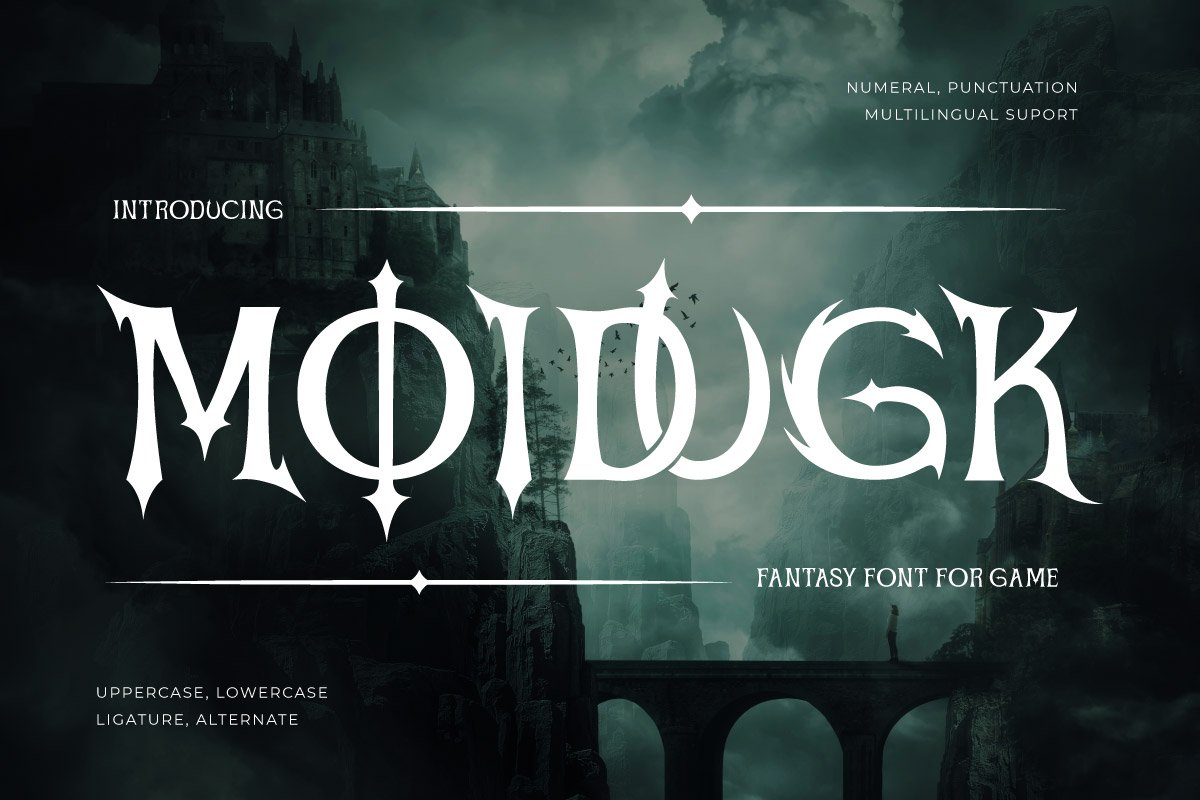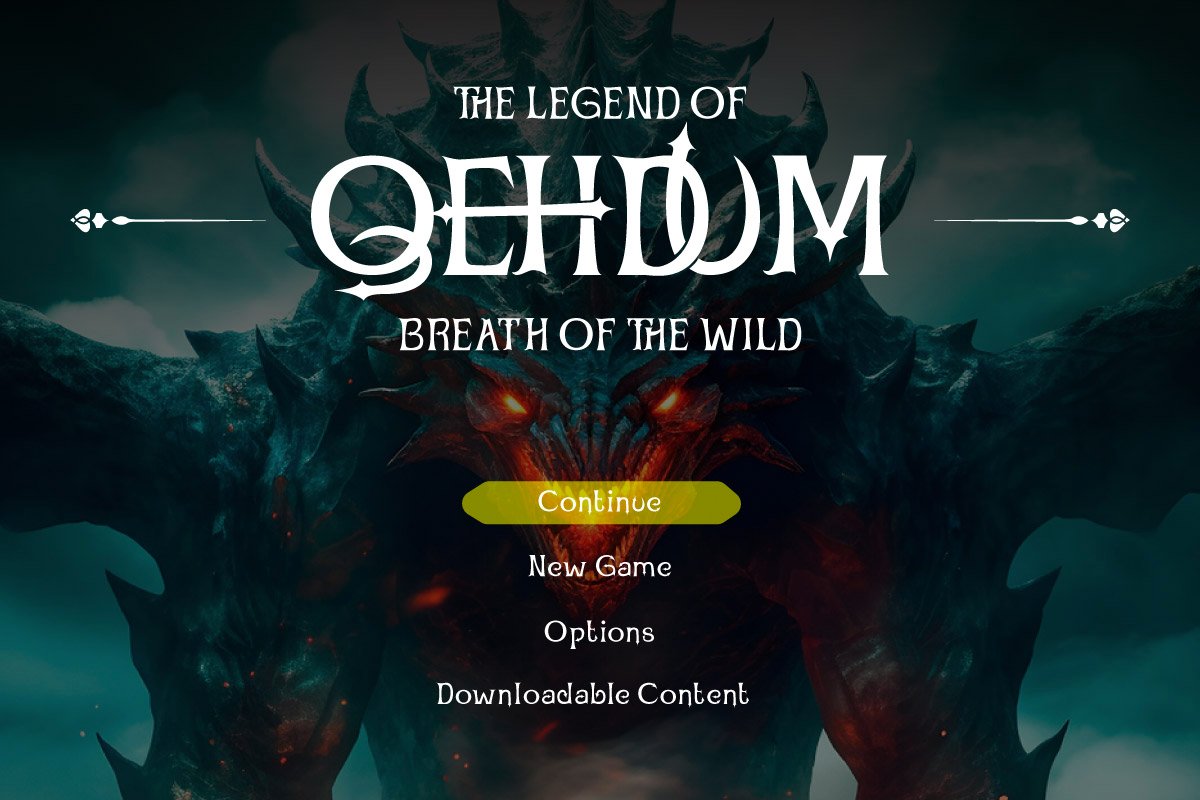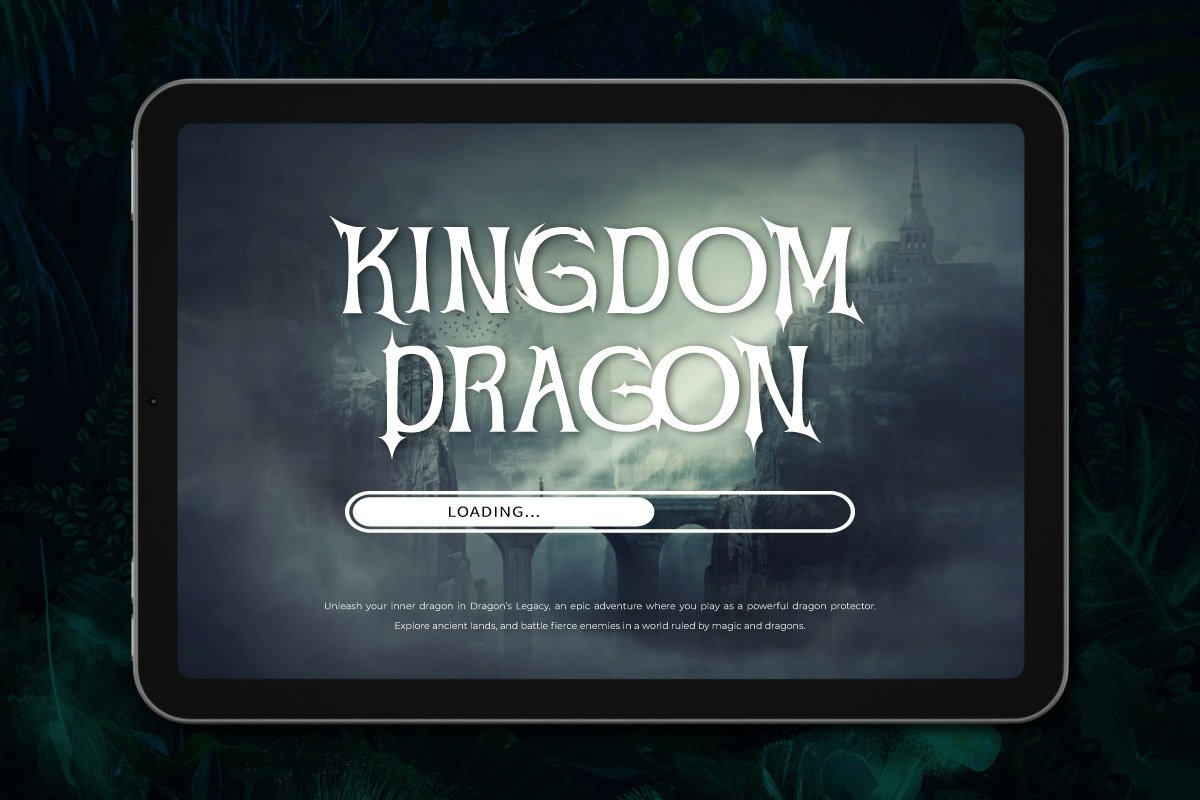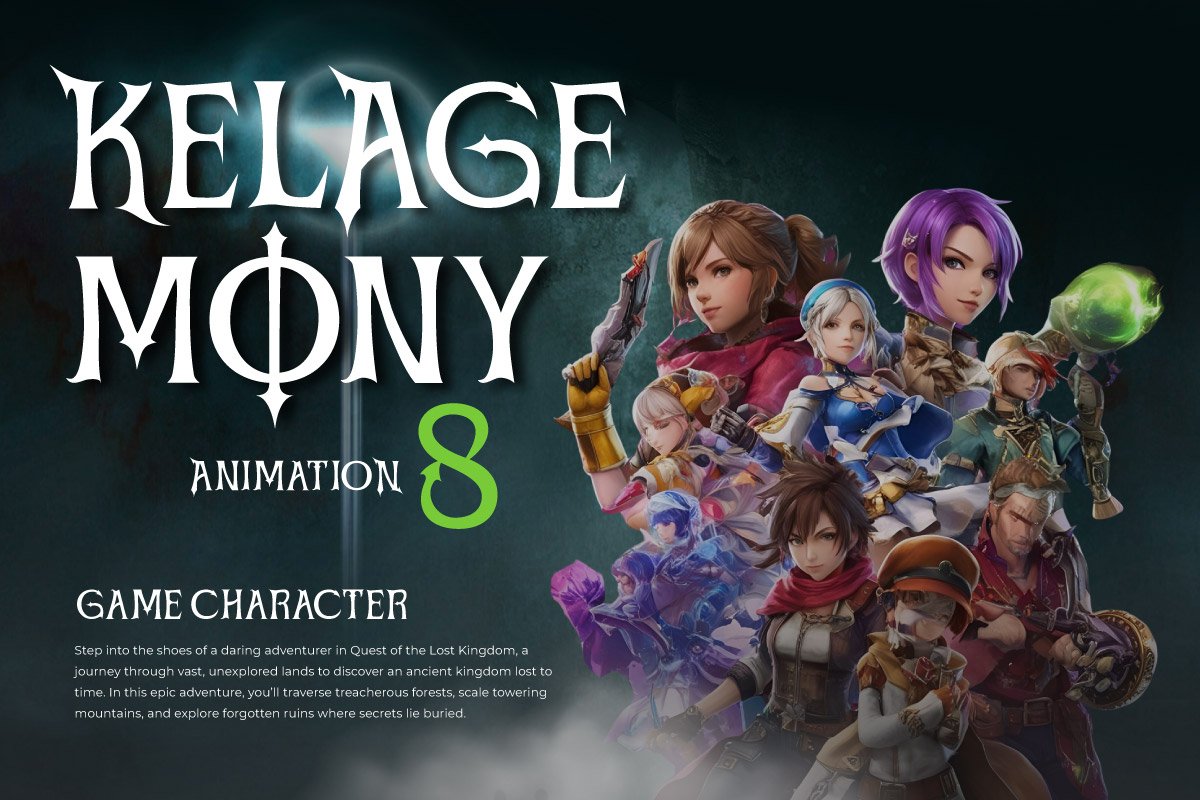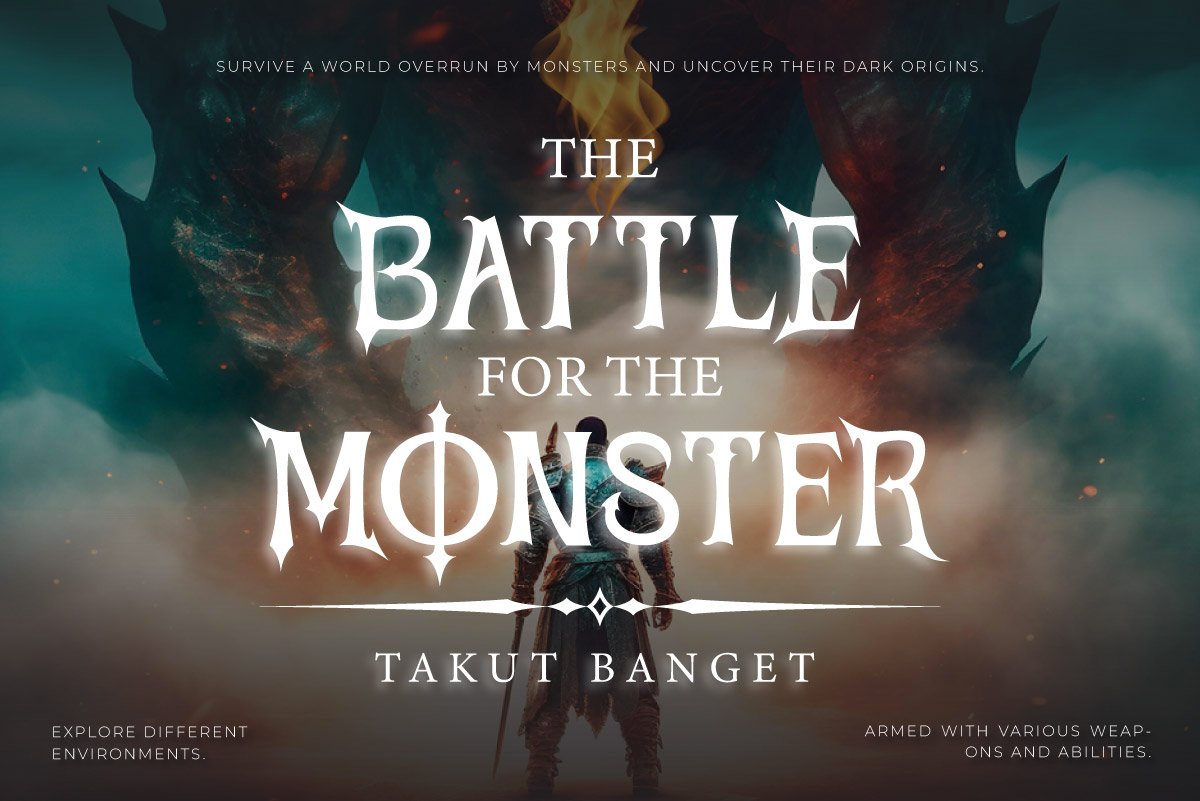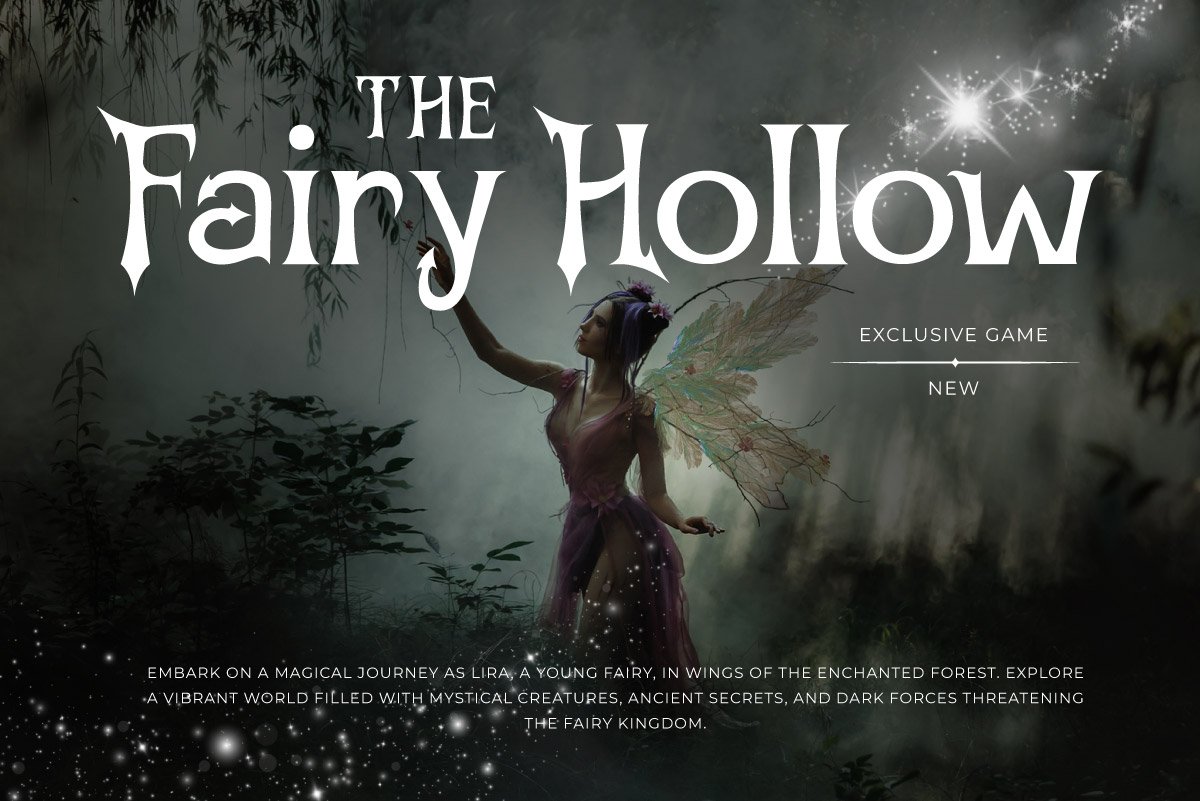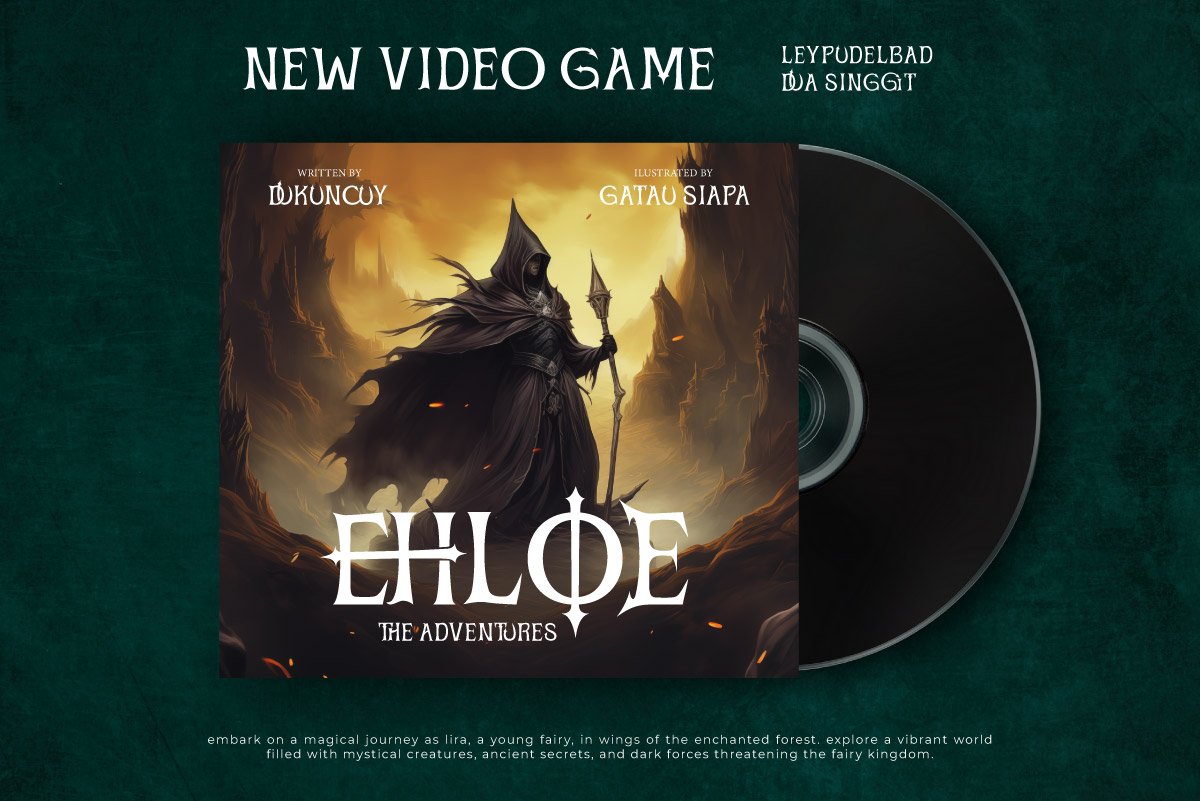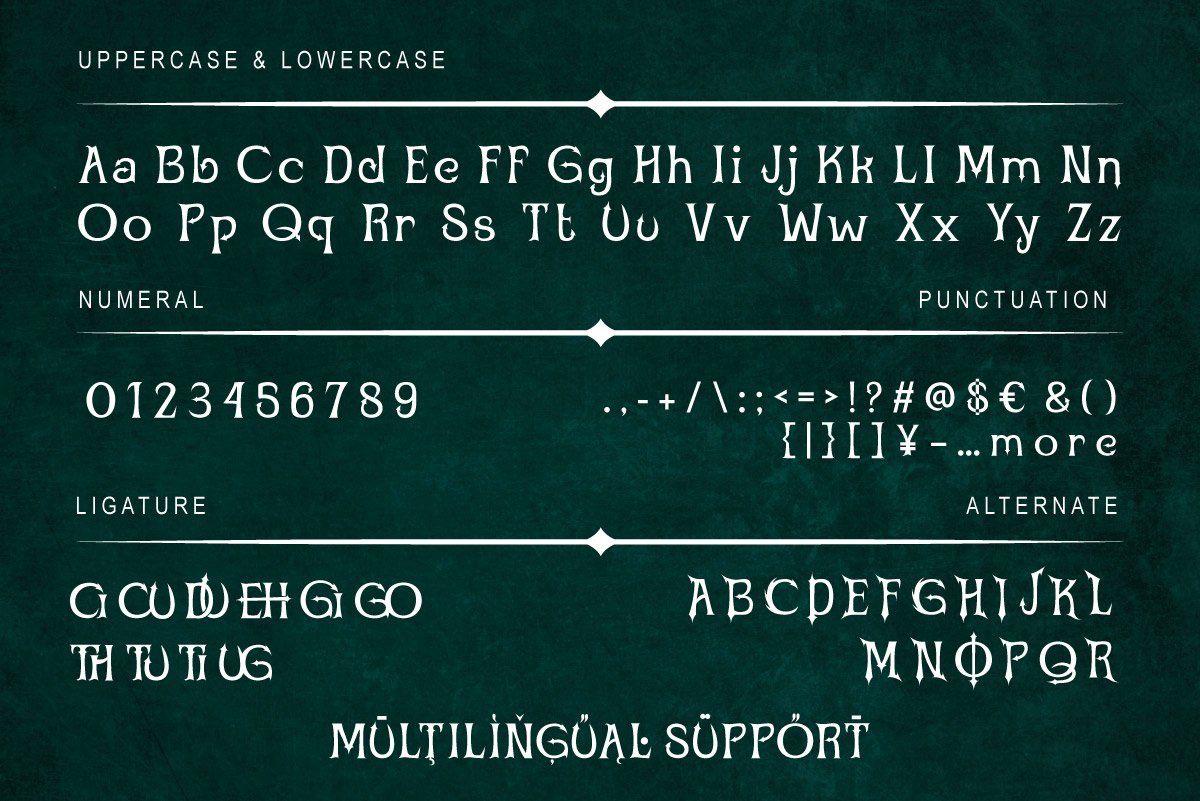
Moidugk – Display Fantasy Font
Moidugk is a bold and adventurous fantasy display font designed to bring mystical and legendary vibes to your gaming projects. With its strong, intricate letterforms and magical aesthetics, this font is perfect for fantasy game titles, RPG-themed branding, epic book covers, and mythical storytelling visuals.
Inspired by enchanted realms, ancient runes, and heroic sagas, Moidugk captures the essence of medieval fantasy with its ornate yet powerful design. Each character is crafted to evoke the feeling of a grand adventure, making it the perfect choice for games that immerse players in mythical worlds, legendary battles, and magical quests.
Whether you’re working on a fantasy MMORPG, tabletop RPG campaign, or a high-fantasy book cover, Moidugk delivers the epic and immersive look you need. Unleash the magic and elevate your designs with the enchanting presence of this one-of-a-kind fantasy font!